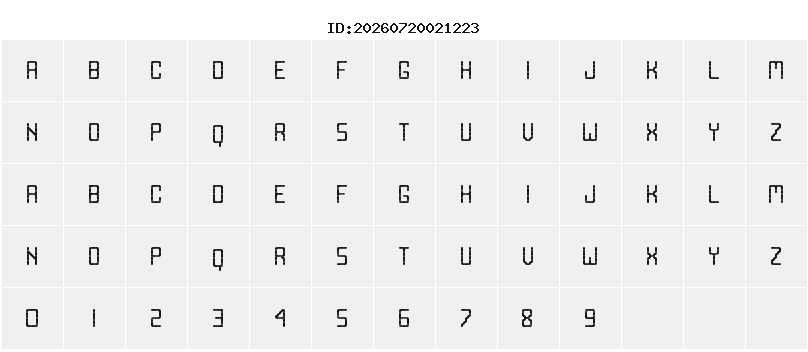
Emmental Preview
• Font Name: Emmental
• Full Font Name: Emmental Regular
• Designer: olivergarciamarcos
• Description: ‚ÄúEmmental‚Äù was built with FontStruct
About Emmental.ttf
Emmental.ttf is a modern, elegant sans-serif font designed for ultimate readability and visual harmony. Perfect for branding, headlines, web design, and print materials.